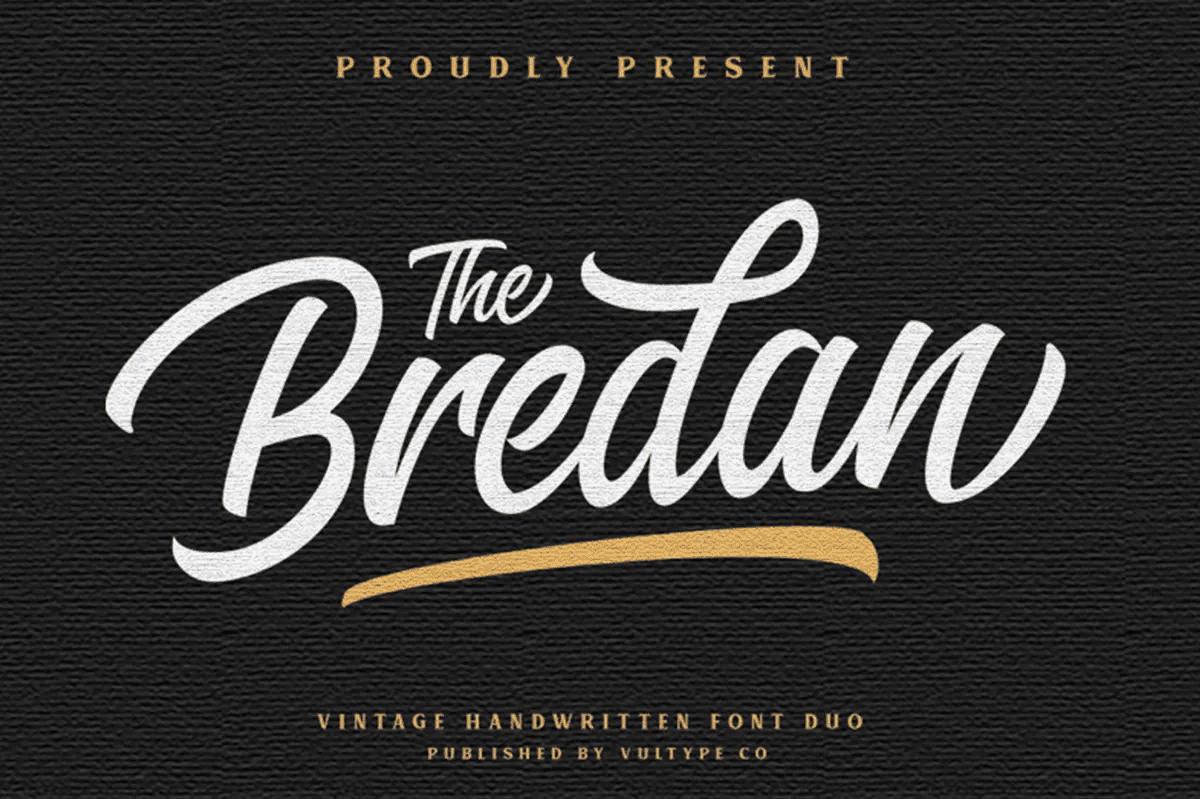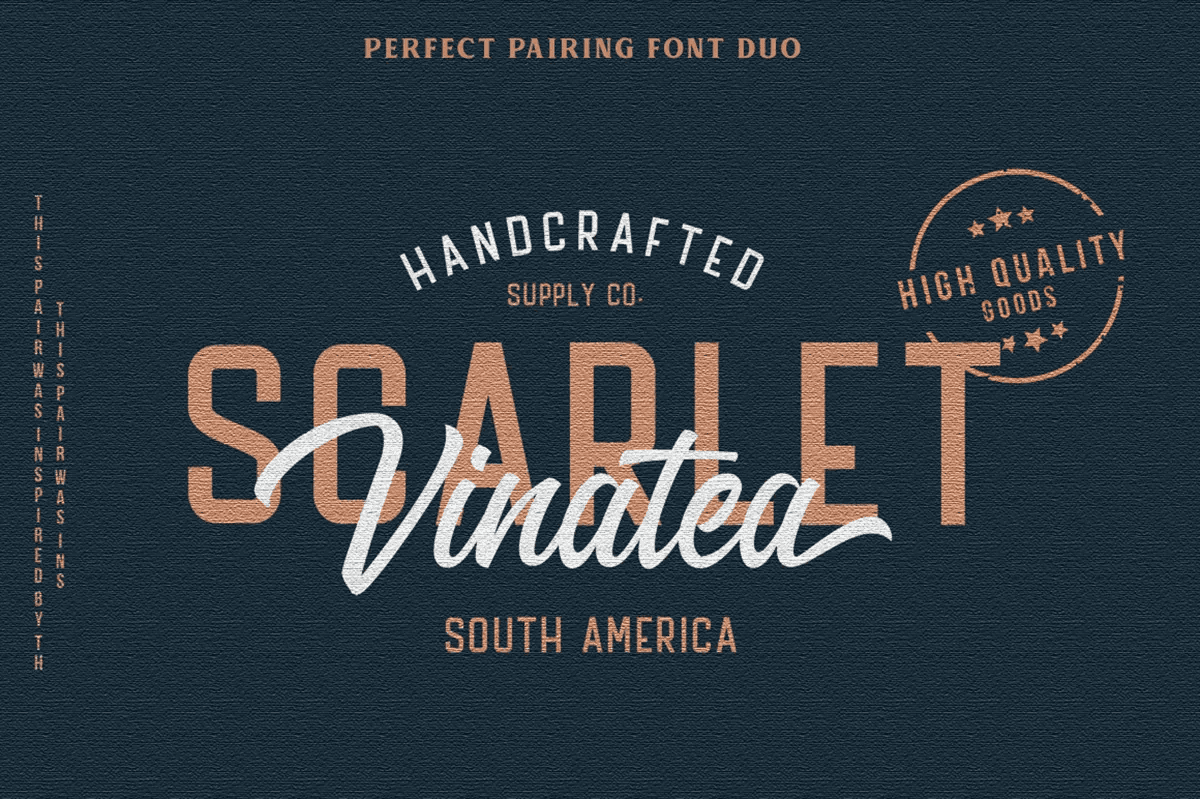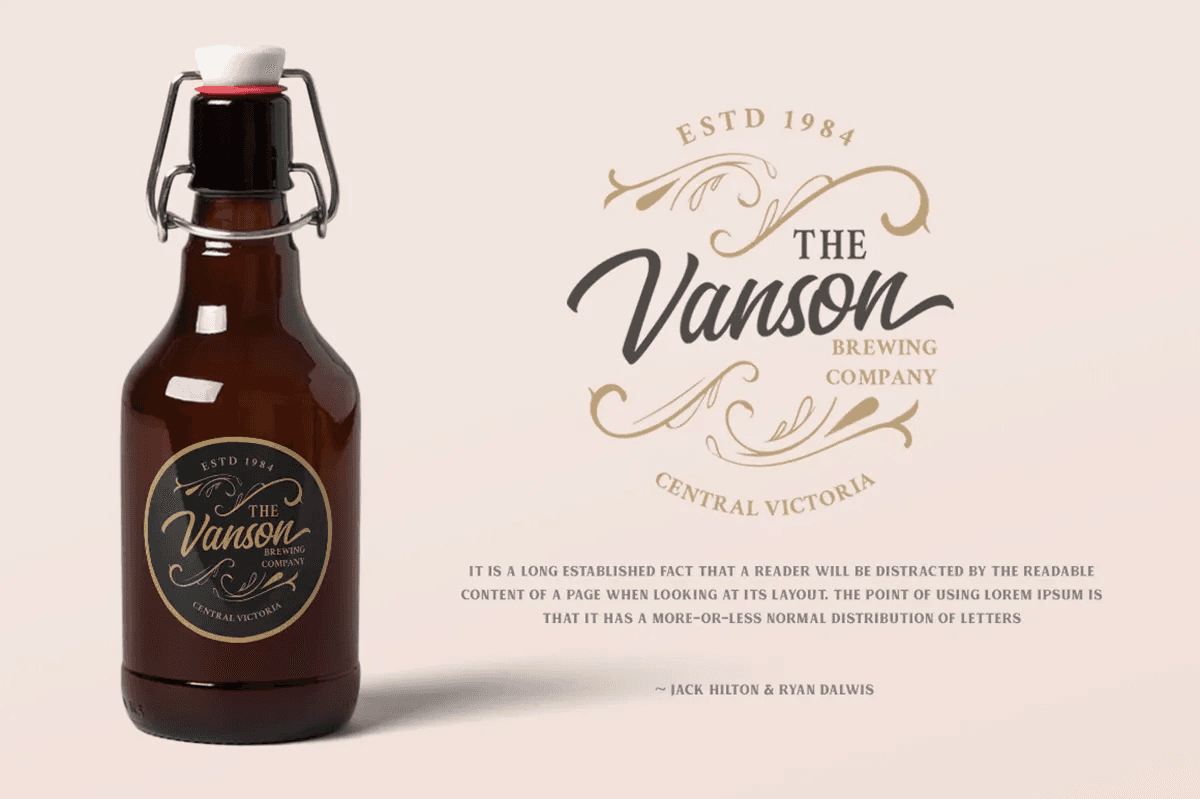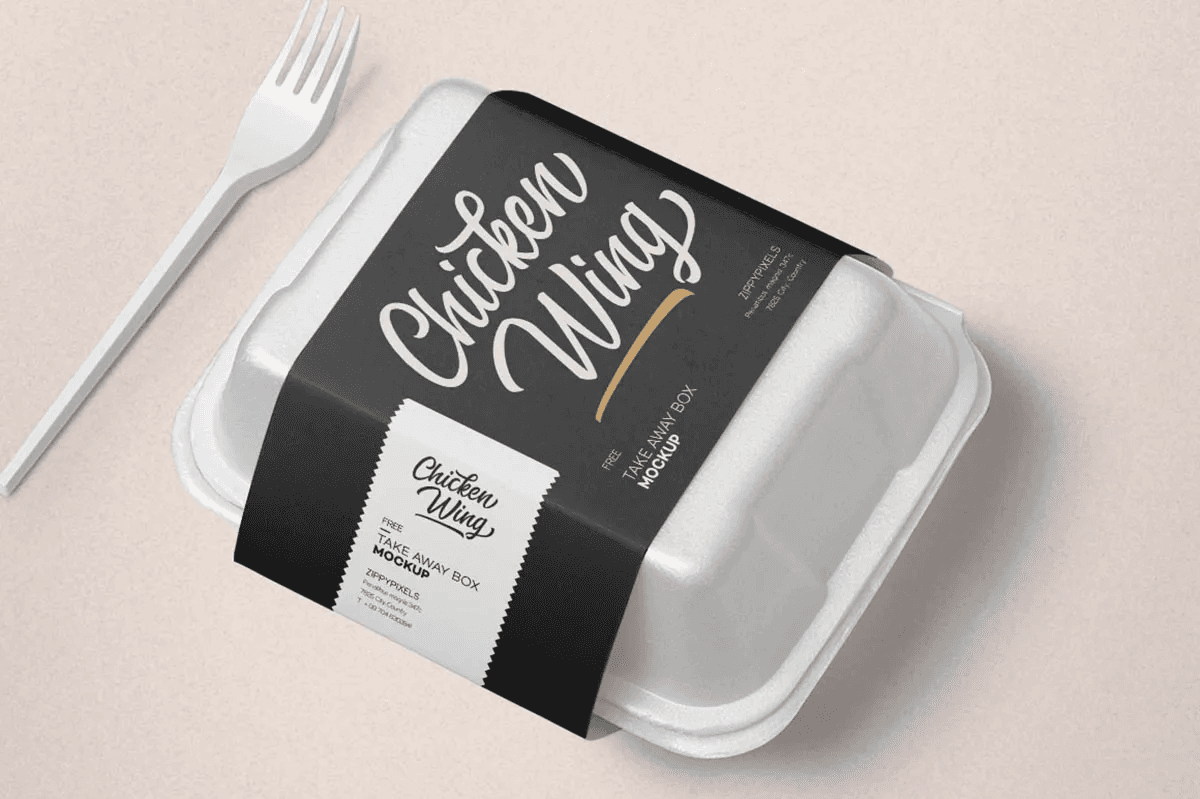
Free The Brendan Script Font
Free The Brendan Script Font is a marvelous script font. It comes with some glyph styles that make your work look more professional. This font match for some designs such as vintage design, logo wedding invitation, gift card and more. However, this free font is a personal use license, you cannot use this font for commercial projects.Thanks to Vultype Co for creating and sharing Free The Brendan Script Font. So, if you wish to access more features and use it for commercial work, go get the premium version as well.